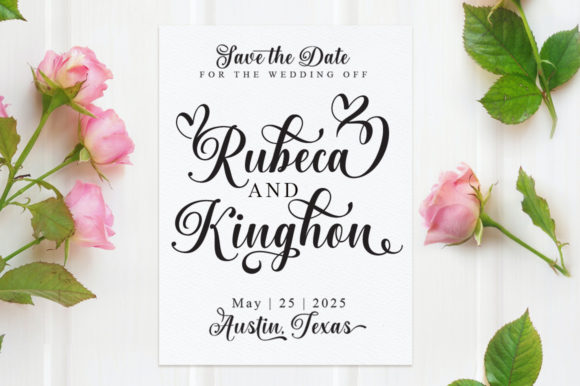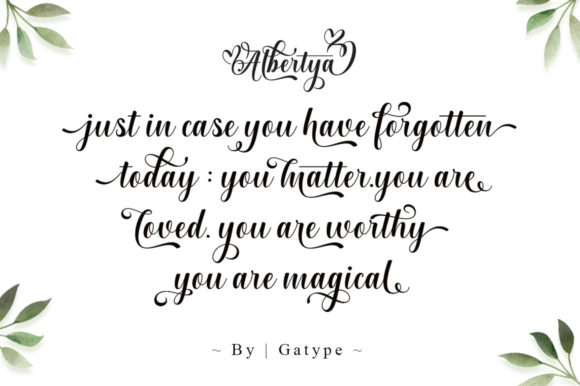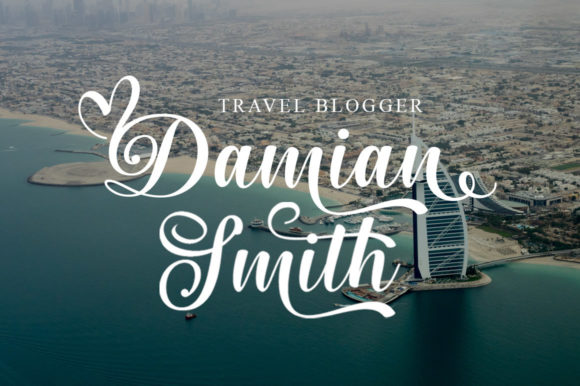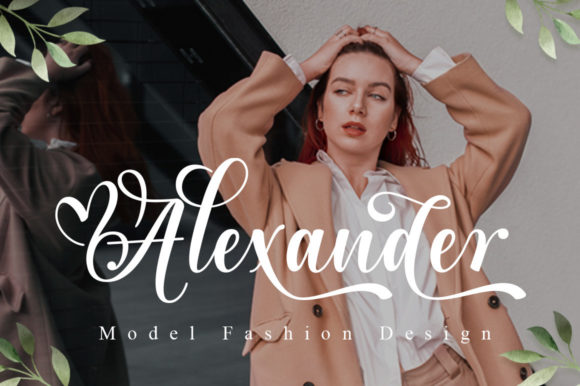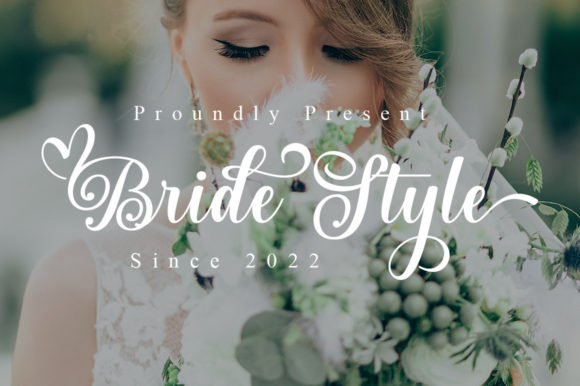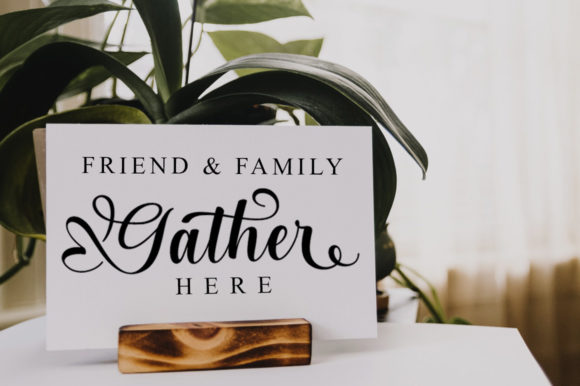
Introduction to Albertya Font
Albertya is a distinct and flowing script font created for packaging products, invitation cards, flyers, mockups, event posters, and anything else that requires high-quality vibes.
It has a beautiful and balanced character, that fits well with the large design pool This font is PUA encoded which means you can access all of the glyphs and swashes with ease.
Key Features of Albertya Font
Why Choose Albertya Font?
Albertya Font offers exceptional quality and versatility, making it a valuable addition to your design toolkit. Whether you’re creating for personal projects or commercial use, Albertya Font delivers professional results.